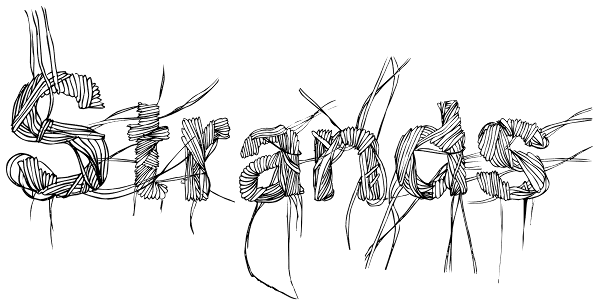
Strands
Strands is a carefully ink drawn font that grows on you. It looks and reads like spaghetti and vines! Spring is emerging with this font. Use it for headlines and logos. Each letter grabs on to the next producing playfulness and life!